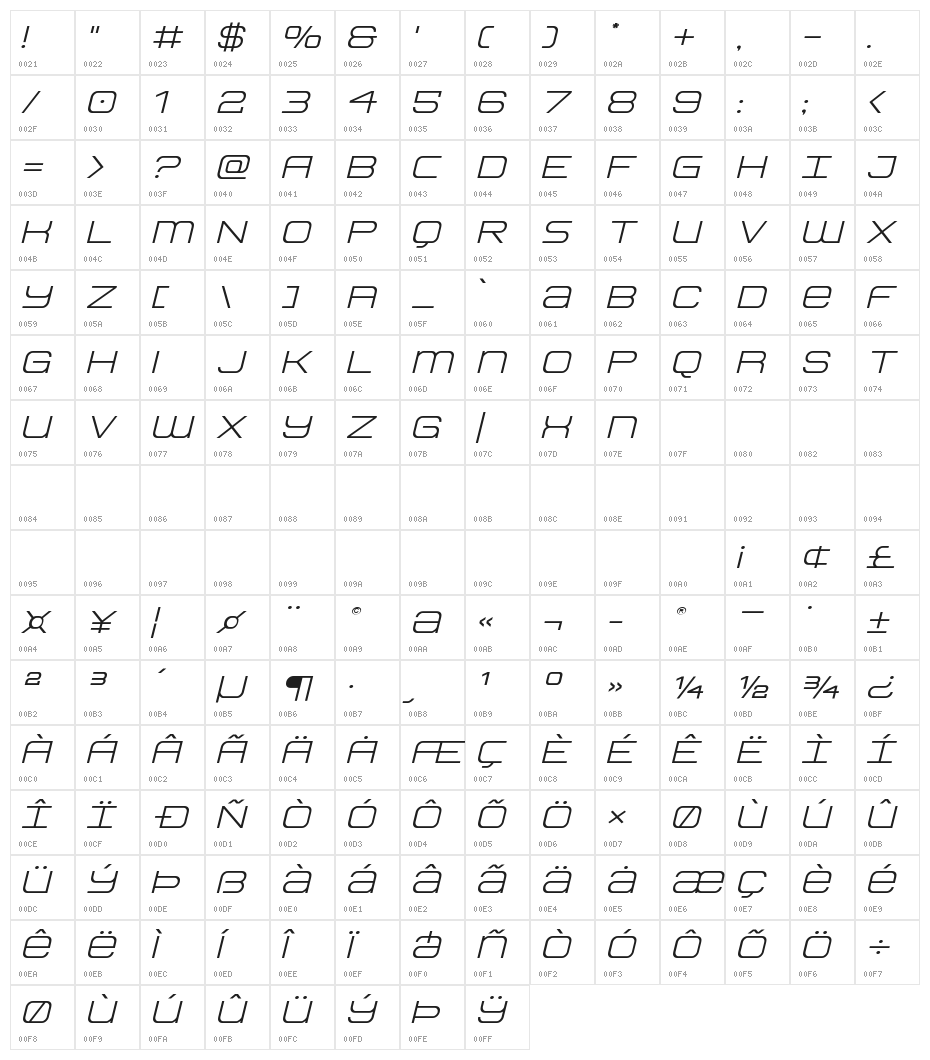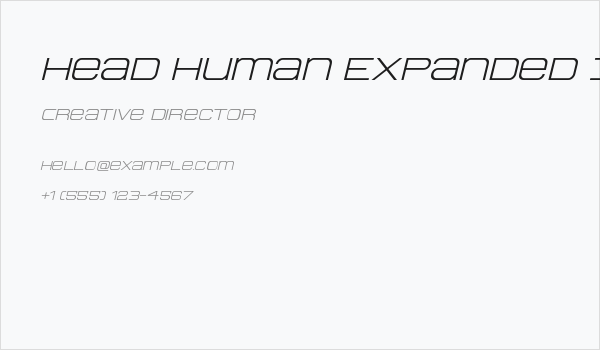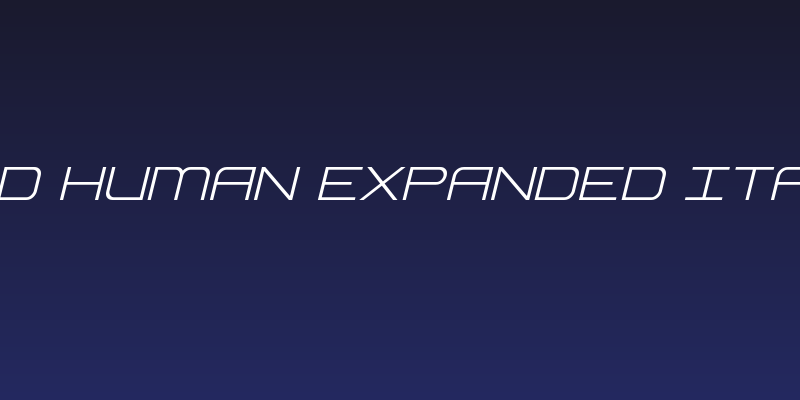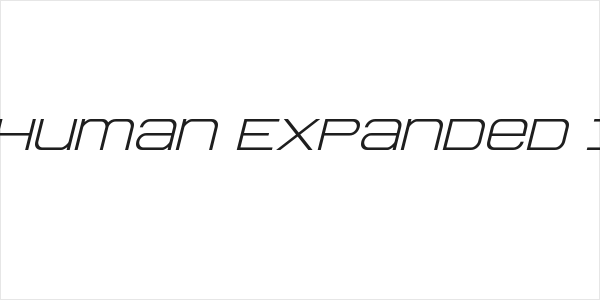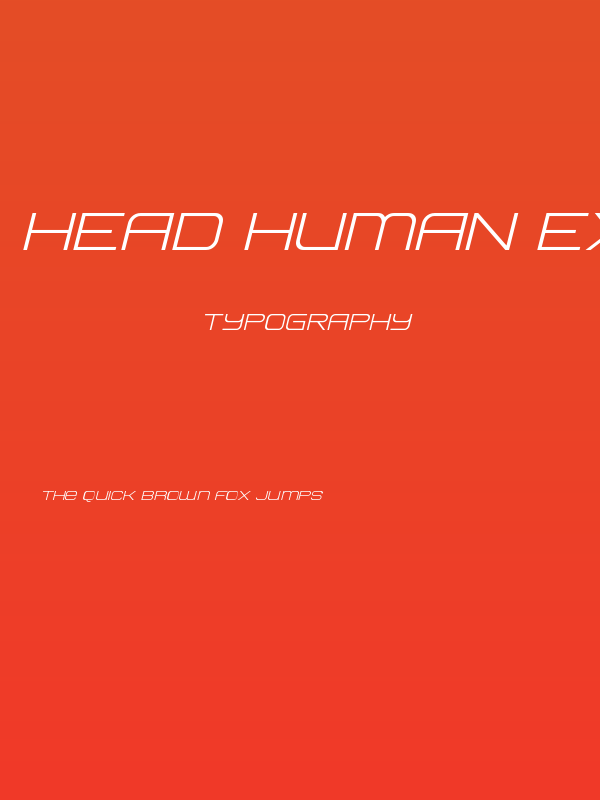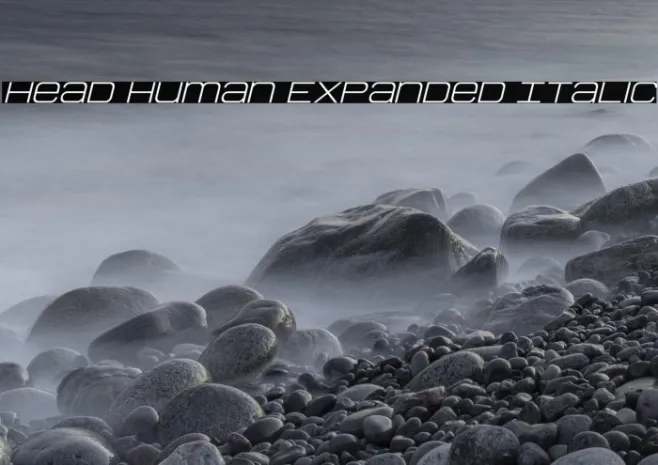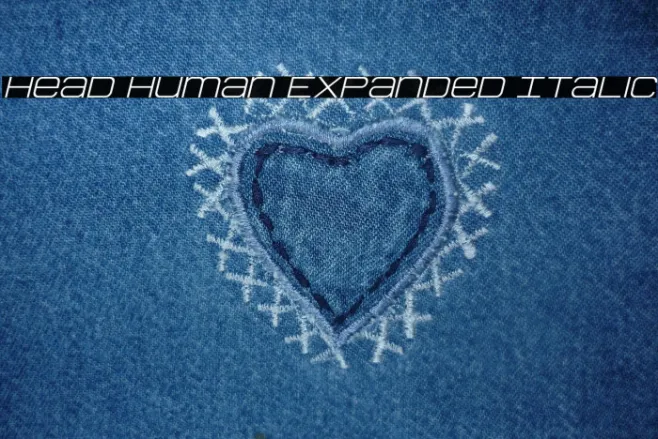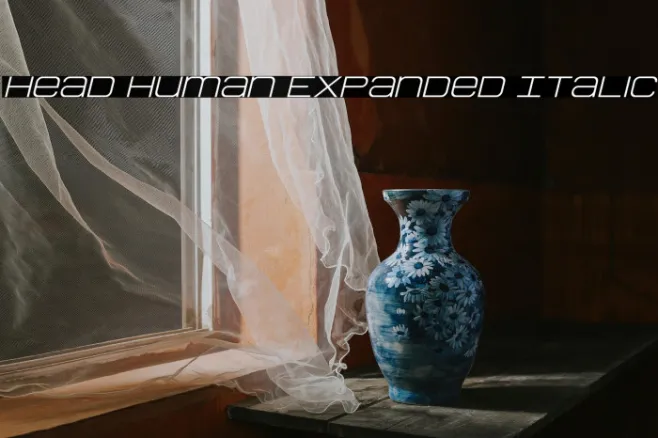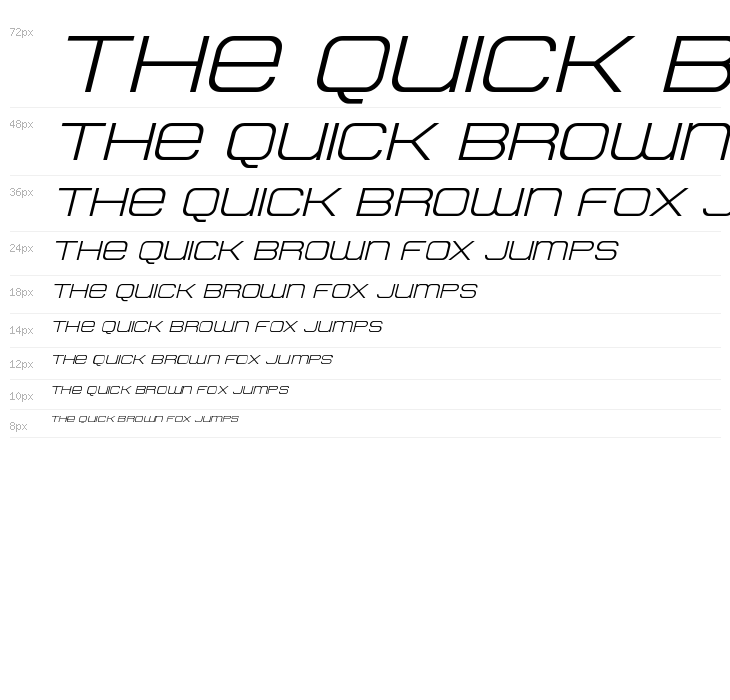
Head Human Expanded Italic Font
Head Human Expanded Italic Description
This font features a sleek, modern design with an expanded width and italicized style. The characters are crafted with a geometric precision, showcasing clean lines and a futuristic aesthetic. The uppercase and lowercase letters maintain a consistent height and width, providing a uniform appearance. Numbers and special characters are designed to complement the alphabet, ensuring a cohesive look across all text. The font's expanded nature allows for excellent readability, making it suitable for various design applications.
| Proposed Projects | Ideal for technology branding, futuristic posters, modern web design, and innovative product packaging. |